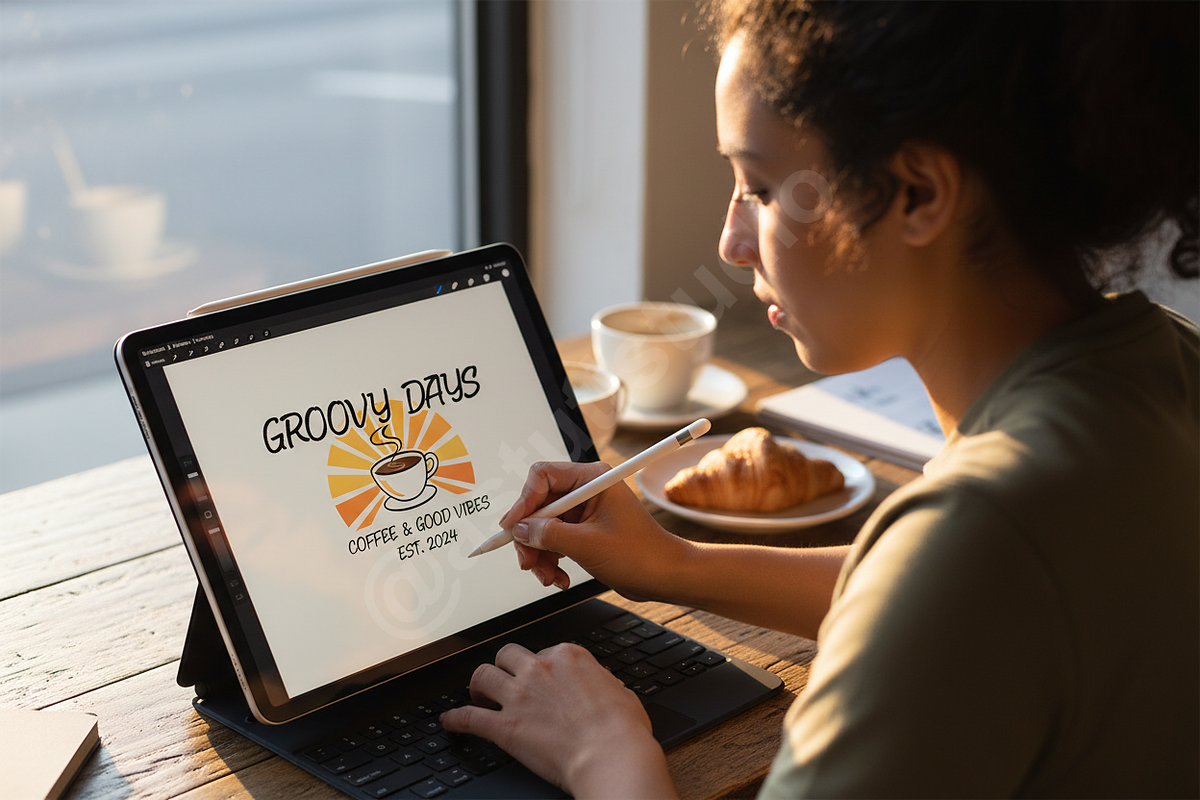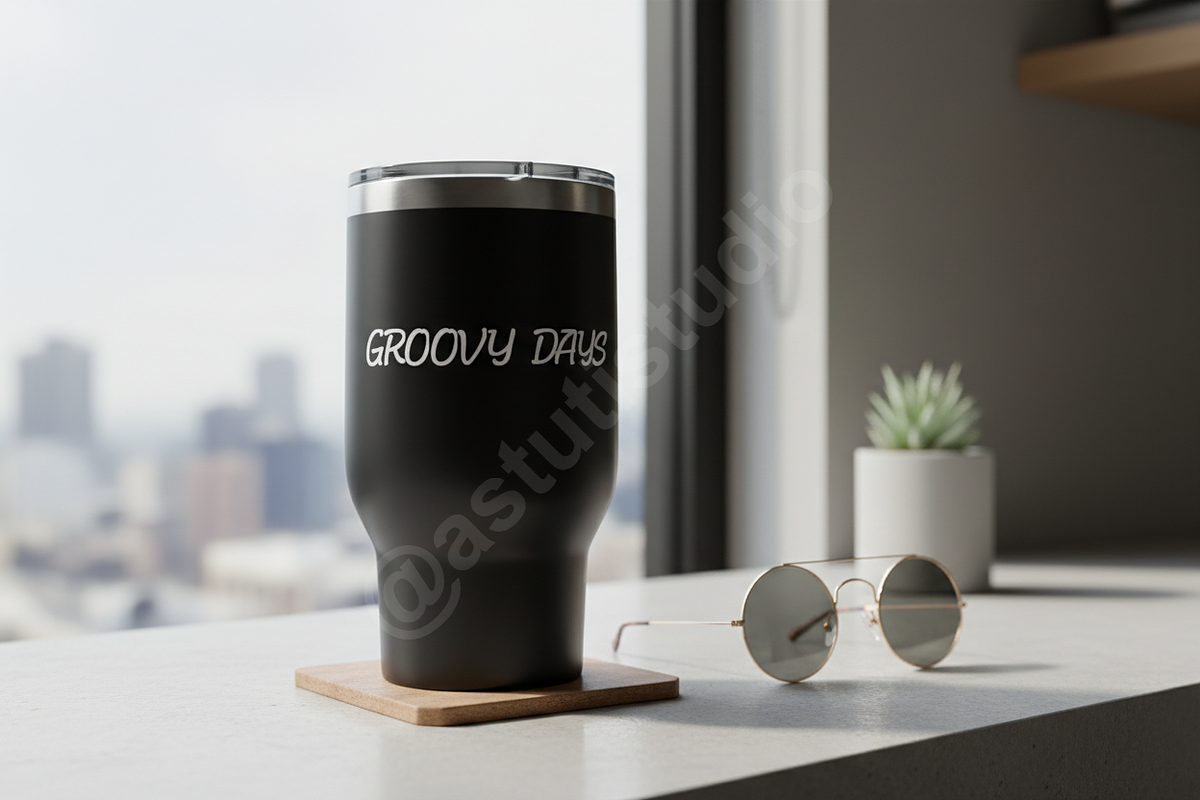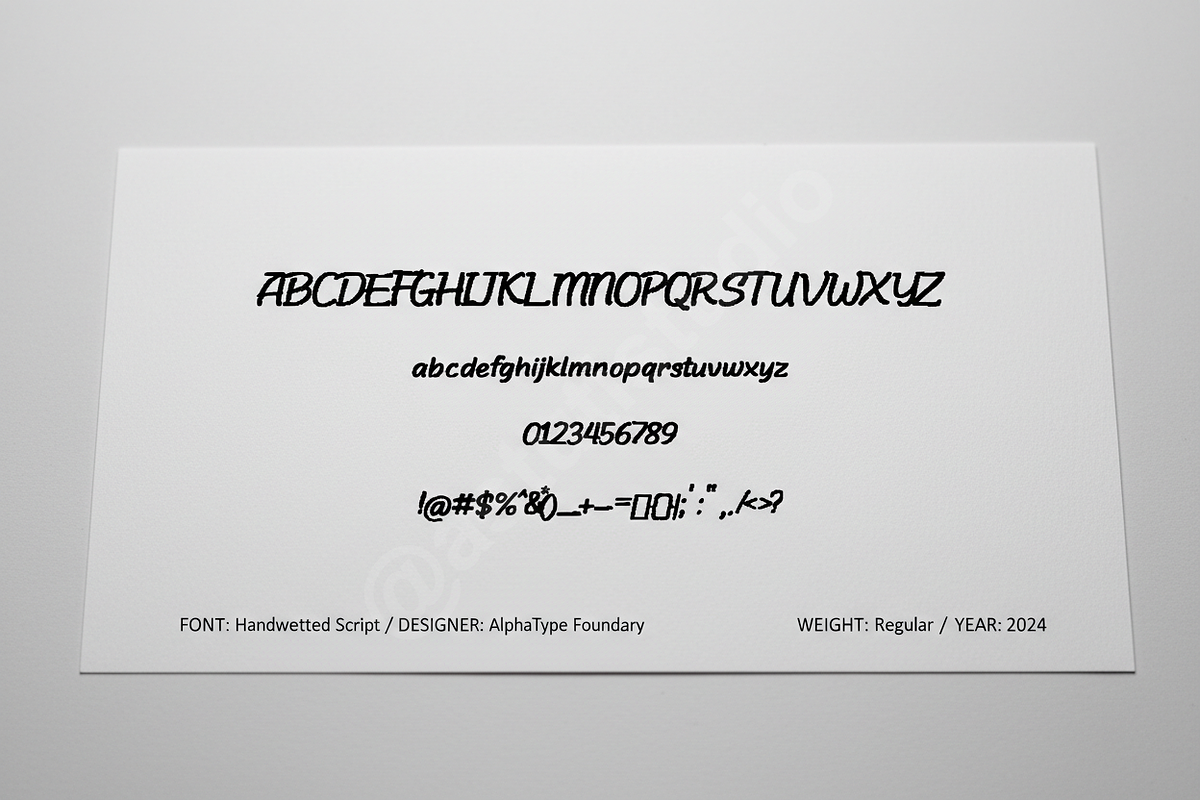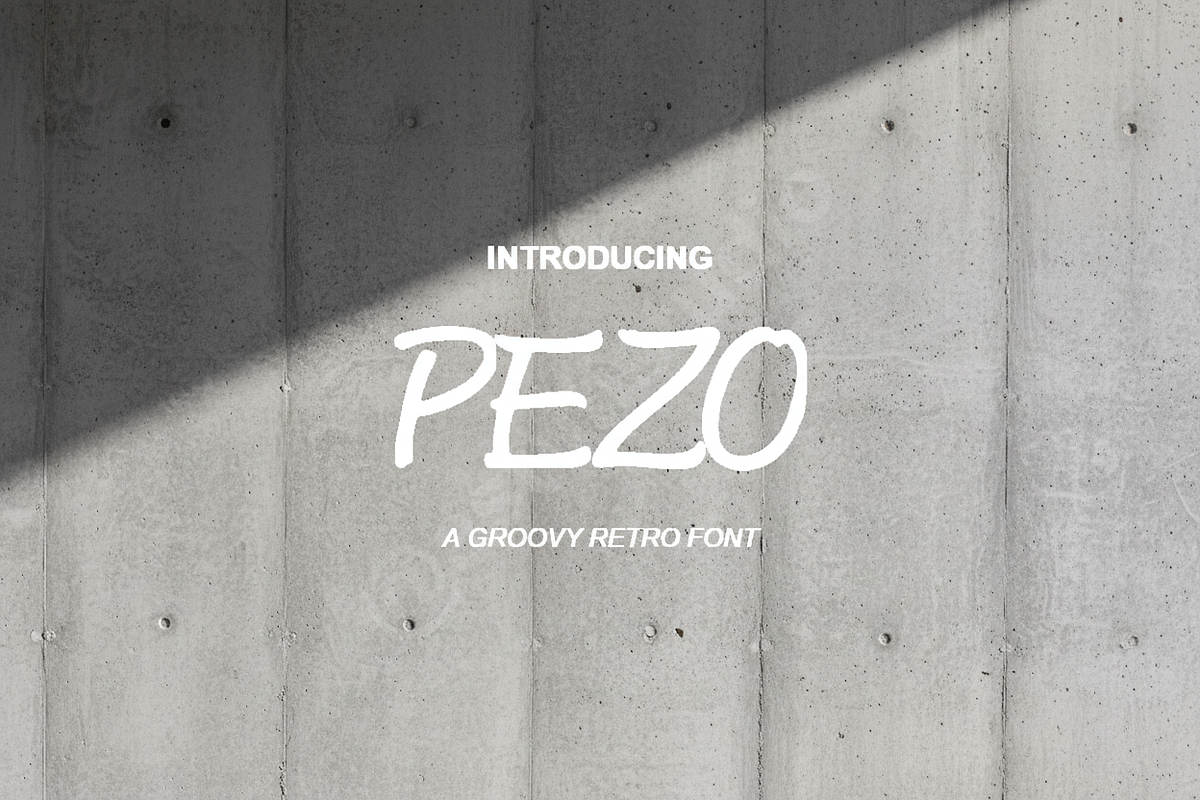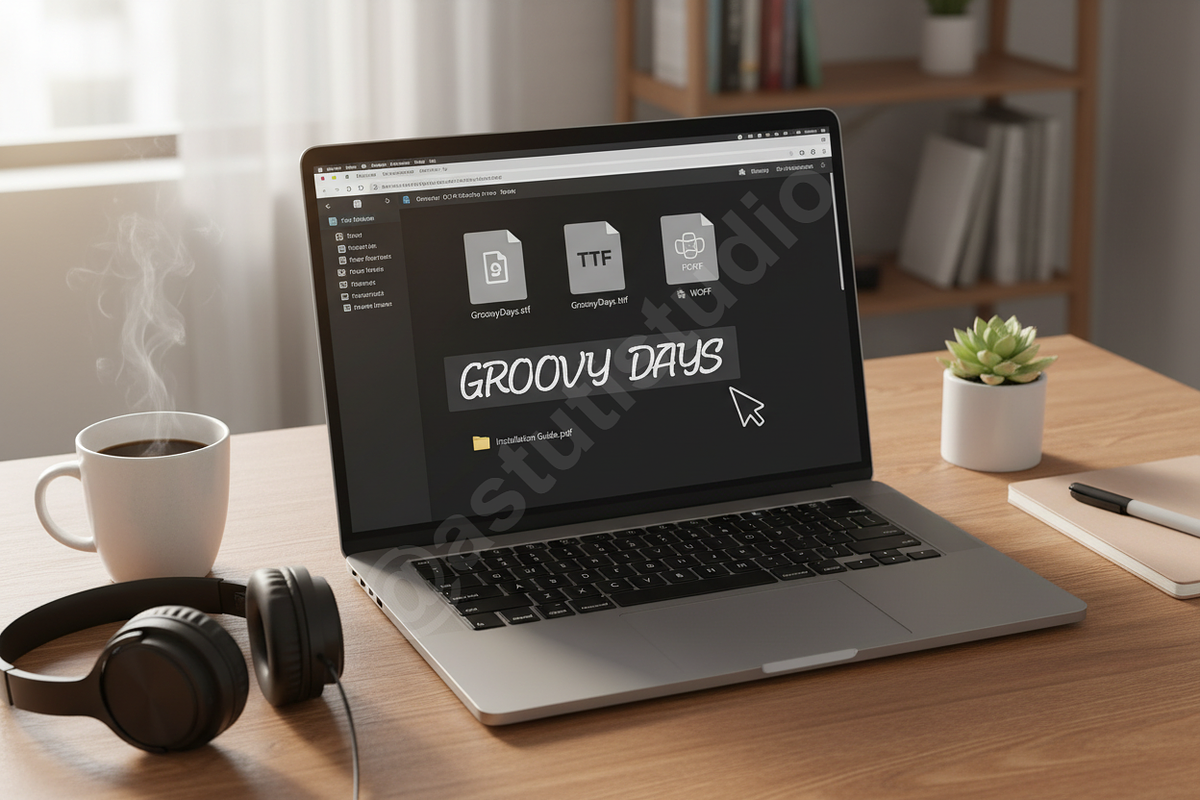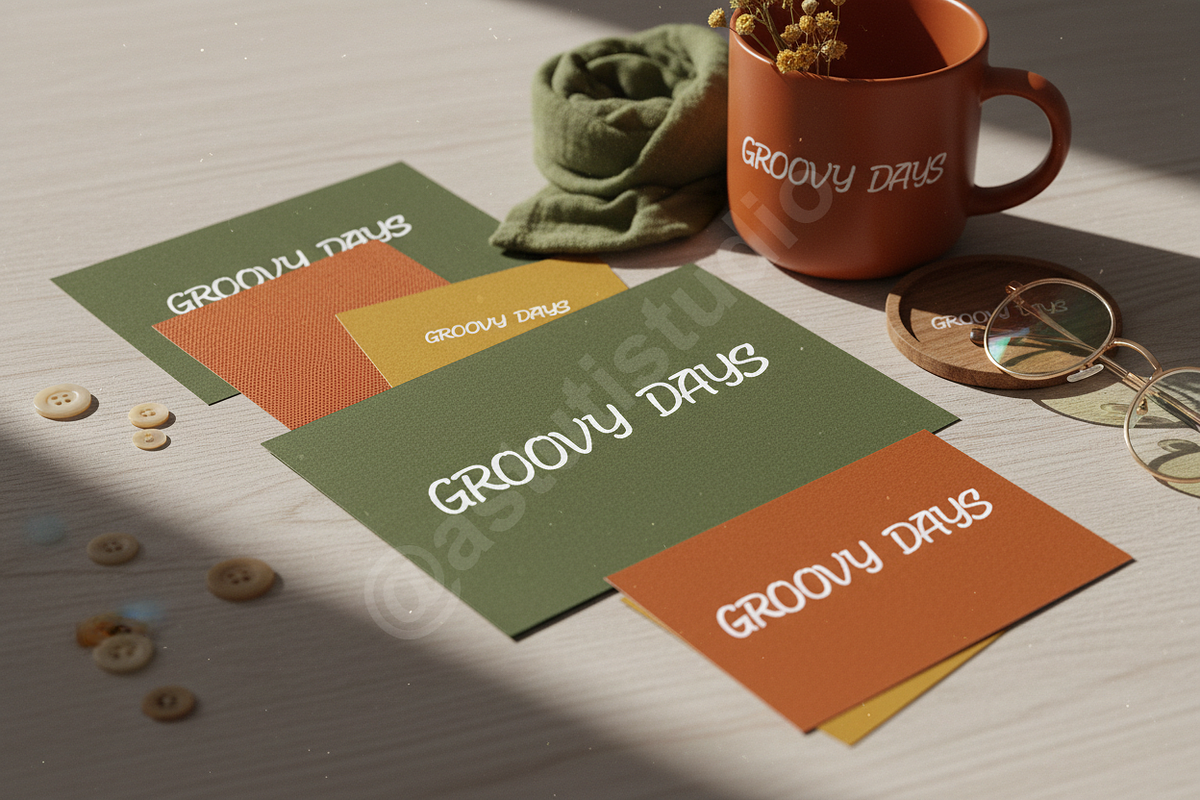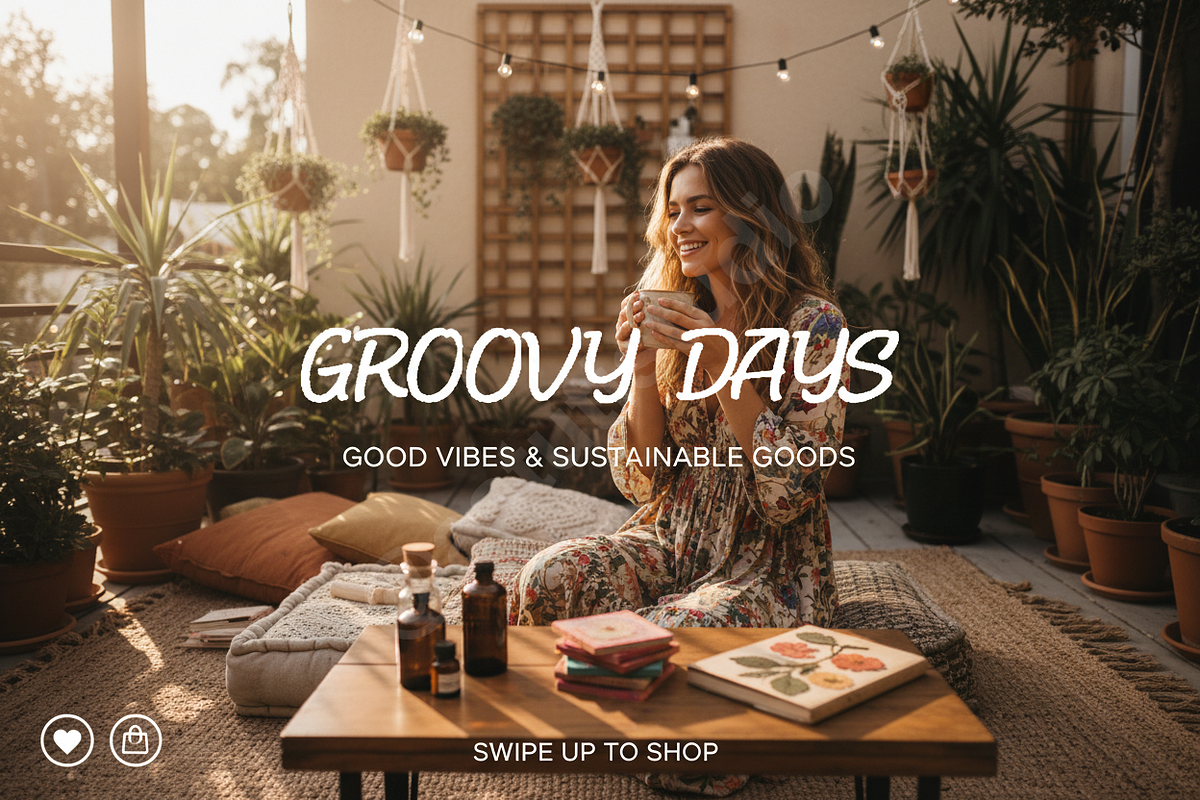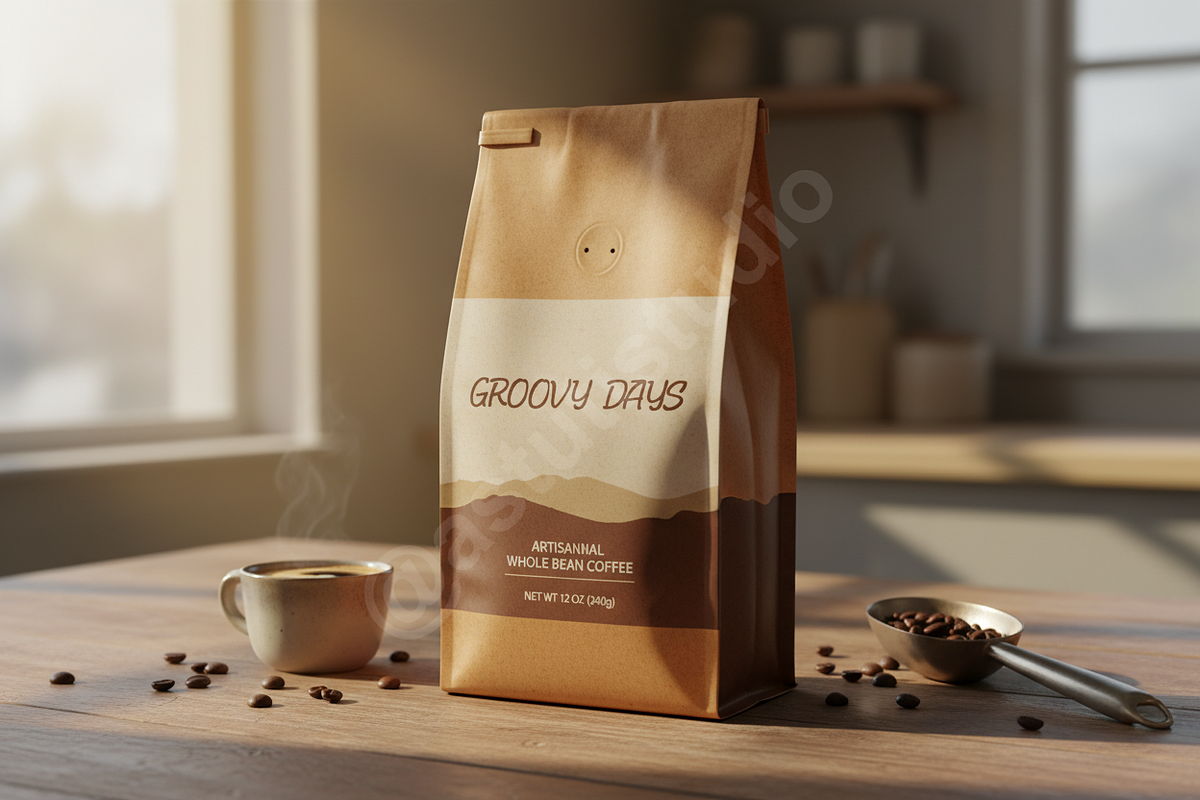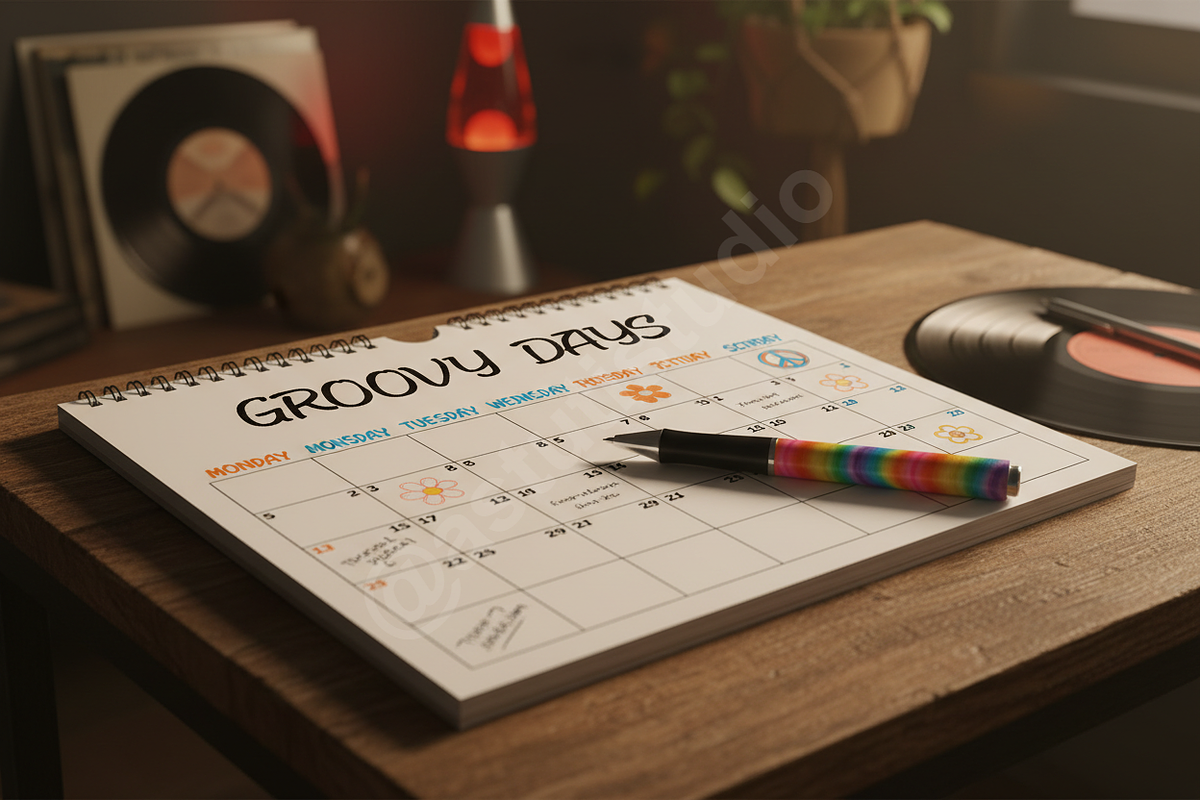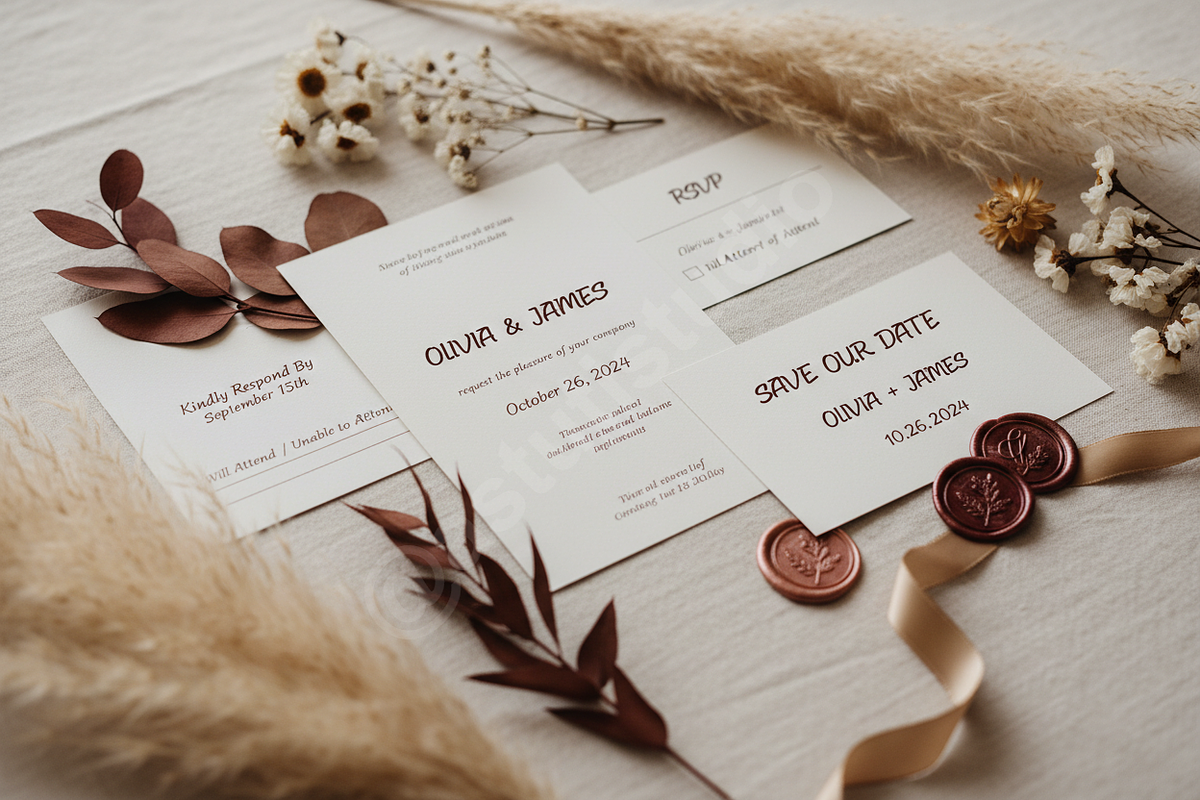
Pezo | Modern Luxury Sans Serif Type
Elevate your visual identity with Pezo, a premium sans-serif typeface meticulously crafted for the modern aesthetic. With its clean lines and sophisticated proportions, Pezo embodies the essence of contemporary luxury, making it an essential tool for designers who prioritize elegance and clarity.
APPLICATIONS Pezo is exceptionally suited for high-end creative projects including:
- Luxury Branding and Visual Identity Systems
- Professional Editorial Design and Magazines
- Impactful Social Media Content and Marketing
- Minimalist Logo Design and Stationery
- High-Fashion and Lifestyle Advertising
- A versatile range of weights for diverse design applications
- Meticulously balanced kerning for a professional finish
- Comprehensive character set including symbols and punctuation
- Full multilingual support for international projects
- Timeless geometric letterforms with a high-fashion aesthetic